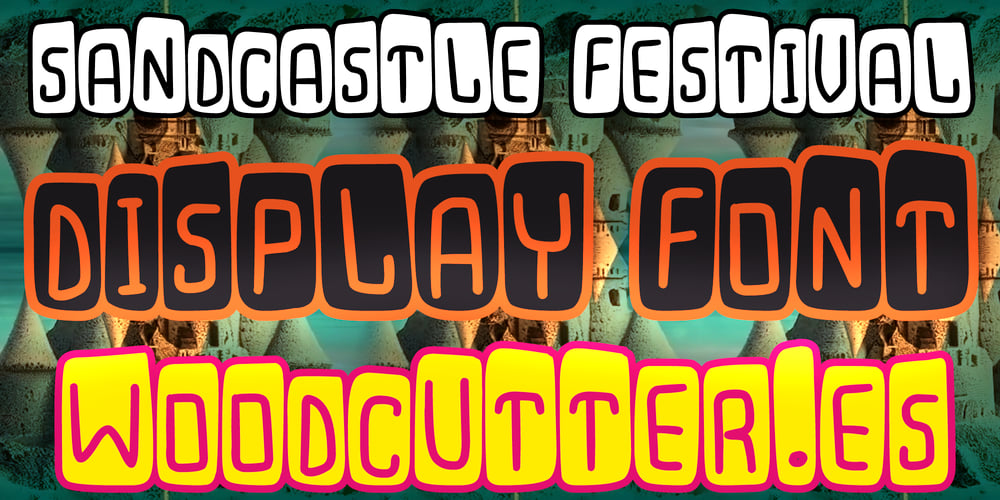
Sandcastle Festival Font Family was designed by Jordi Manero and published by Woodcutter. Sandcastle Festival contains 1 styles and family package options. “Sandcastle Festival” is a display font with a unique and fun design. The letters are enclosed in black rectangles, creating a striking contrast that stands out in any composition. The uppercase letters and accents add a dynamic and informal touch, ideal for projects that aim to convey joy and creativity. Perfect for festival posters, invitations, and any design that needs a playful and visually appealing touch.